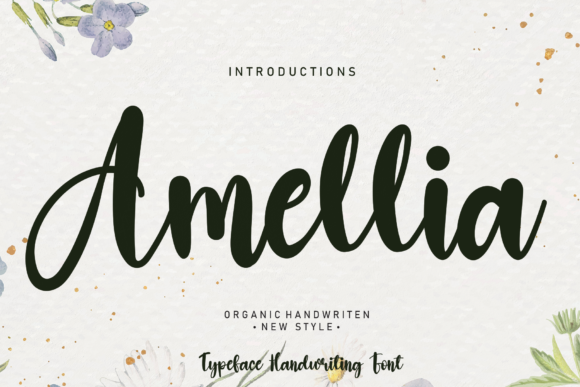
The Magical World of Amellia Font: Elevate Your Designs with Elegance
I’ll never forget the time I was working on a DIY project for a client’s wedding invitation. I had the perfect design concept, but I was struggling to find a font that would bring it all together. The font had to be elegant, yet playful; sophisticated, yet whimsical. That’s when I stumbled upon Amellia Font, and it was love at first sight! 💕
Amellia is a magical script font carefully crafted with a touch of elegance. Whether you’re looking for fonts for Instagram or calligraphy scripts for DIY projects, this font will turn any creative idea into a true piece of art! In this article, I’ll share my honest review of Amellia Font, a practical guide on how to use it, and some helpful tips and tricks.
• 💫 Elegant and sophisticated, perfect for high-end designs
• 🎨 Versatile and adaptable to various design styles
• 🔍 Extensive OpenType features, glyphs, and stylistic alternates
• ⚠️ Limited availability of certain characters and glyphs in some software
• 🤔 May require some manual kerning for optimal results
The Story Behind Amellia Font
Amellia Font was designed by a talented typographer who wanted to create a font that would evoke a sense of elegance and sophistication. Inspired by classic calligraphy and modern script fonts, Amellia Font was carefully crafted to be versatile and adaptable to various design styles. Whether you’re a designer, crafter, or creative hobbyist, Amellia Font is sure to become a favorite in your collection.
Q: What makes Amellia Font unique?
A: Amellia Font’s unique blend of elegance and playfulness, combined with its extensive OpenType features, makes it a standout in the world of script fonts.
Q: Is Amellia Font suitable for beginners?
A: Absolutely! Amellia Font is easy to use and navigate, even for those new to design and typography.